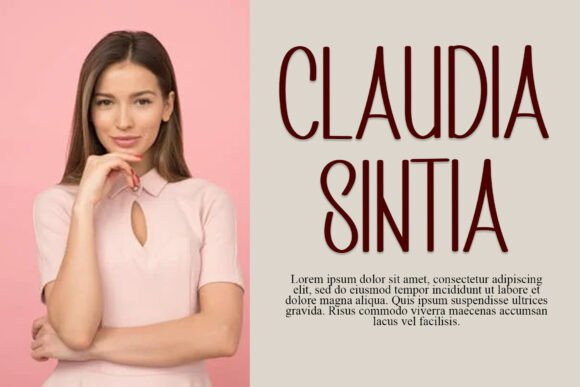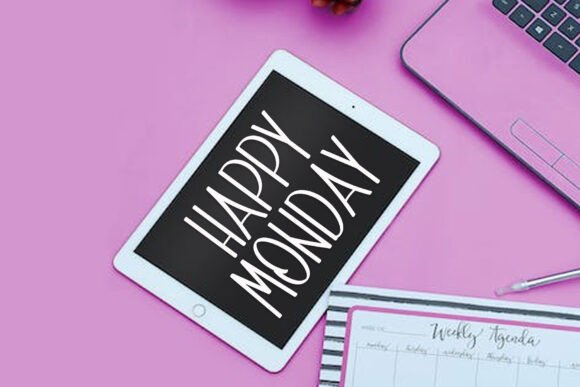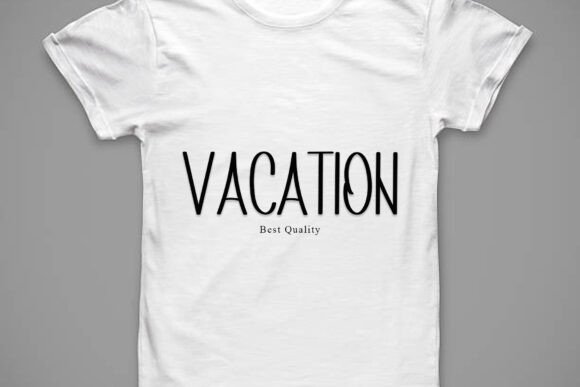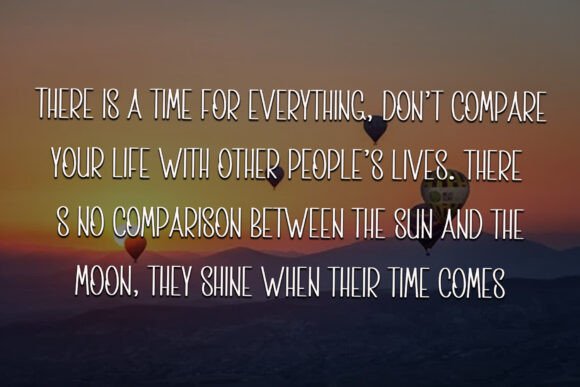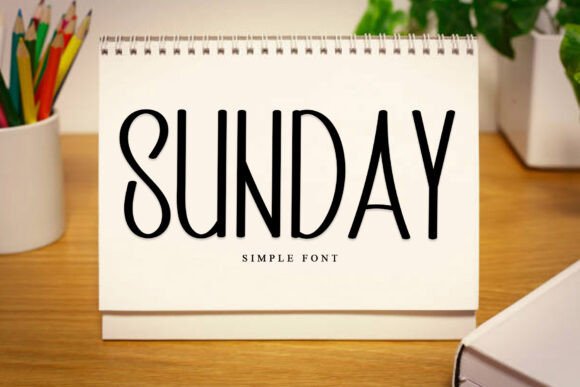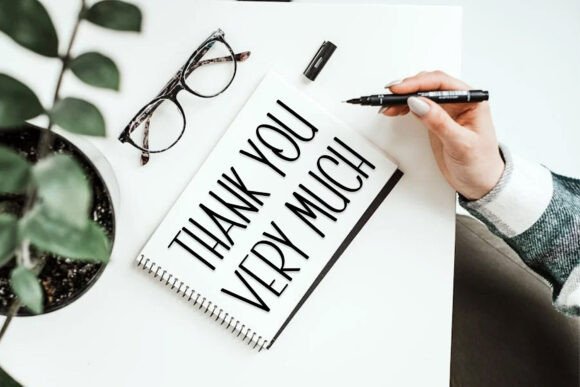
Introducing Bestie Forever Font: The Ultimate Display Font for Stunning Designs
Are you a designer or crafter looking for a font that can elevate your creative projects to the next level? Look no further than Bestie Forever Font, a lovely and timeless display font that’s perfect for creating eye-catching logos, branding, and quotes. In this article, we’ll dive into the features and benefits of Bestie Forever Font, and explore why it’s a must-have for any designer or crafter.
A Lovely and Timeless Display Font
Bestie Forever Font is a beautifully crafted display font that’s designed to make your designs stand out. With its unique and beautiful touch, every letter is a work of art that will bring your creative projects to life. Whether you’re creating a logo, branding materials, or quotes, Bestie Forever Font is the perfect choice for adding a touch of elegance and sophistication.
Perfect for Creating Eye-Catching Logos, Branding, and Quotes
Bestie Forever Font is specifically designed for creating eye-catching logos, branding, and quotes. Its stunning letterforms and beautiful ligatures make it perfect for creating visually appealing designs that grab attention. With Bestie Forever Font, you can create stunning logos that reflect your brand’s personality, craft beautiful branding materials that showcase your style, and design inspiring quotes that motivate and uplift.
One of the best features of Bestie Forever Font is that it’s PUA (Private Use Area) encoded. This means that you can access all of the amazing glyphs and ligatures with ease, giving you even more creative possibilities. With PUA encoding, you can easily access and use the font’s built-in features, such as swashes, alternates, and ligatures, to add an extra layer of creativity to your designs.
Why Choose Bestie Forever Font?
So why choose Bestie Forever Font over other display fonts? Here are just a few reasons:
- Unique and Beautiful Letterforms: Every letter in Bestie Forever Font has a unique and beautiful touch that will make your designs stand out.
- PUA Encoded: With PUA encoding, you can easily access and use the font’s built-in features, such as glyphs and ligatures.
- Perfect for Logos, Branding, and Quotes: Bestie Forever Font is specifically designed for creating eye-catching logos, branding, and quotes.
- Elegant and Sophisticated: Bestie Forever Font adds a touch of elegance and sophistication to any design.
Tips for Using Bestie Forever Font
Here are a few tips for using Bestie Forever Font in your designs:
- Use it for Headlines and Titles: Bestie Forever Font is perfect for creating stunning headlines and titles that grab attention.
- Experiment with Ligatures and Glyphs: With PUA encoding, you can easily access and use the font’s built-in ligatures and glyphs to add an extra layer of creativity to your designs.
- Pair it with Other Fonts: Bestie Forever Font pairs well with other fonts, so feel free to experiment with different font combinations to create a unique look.
In conclusion, Bestie Forever Font is a must-have for any designer or crafter looking to elevate their creative projects to the next level. With its unique and beautiful letterforms, PUA encoding, and elegant and sophisticated style, it’s the perfect choice for creating eye-catching logos, branding, and quotes. Whether you’re a seasoned designer or just starting out, Bestie Forever Font is a font that will inspire and delight.